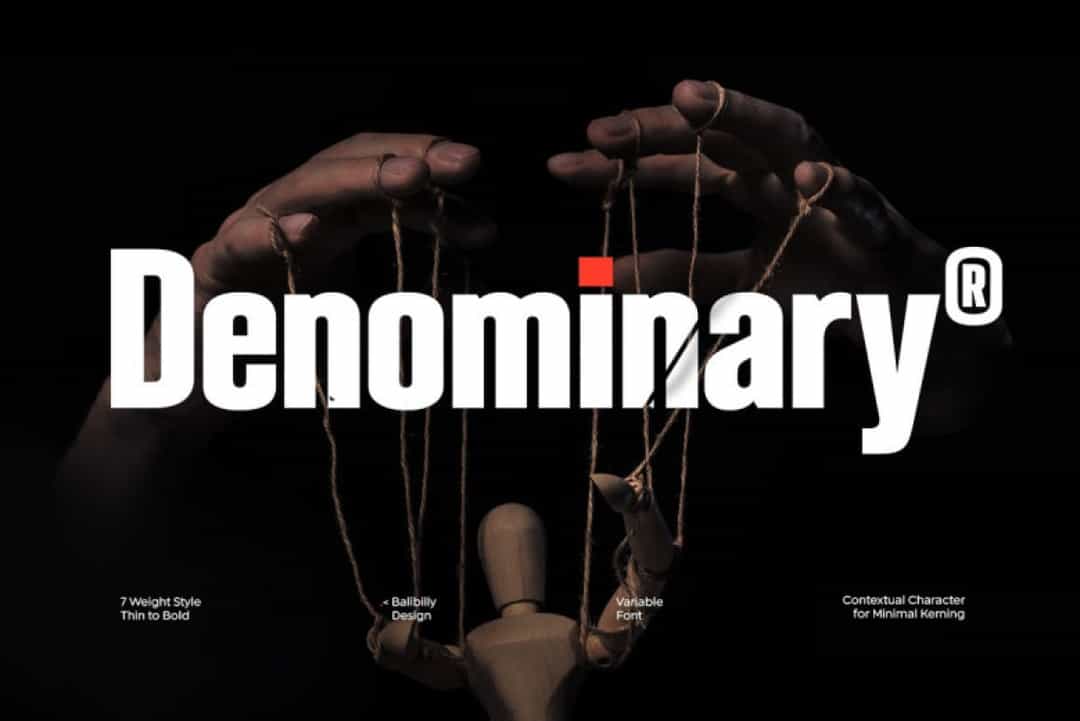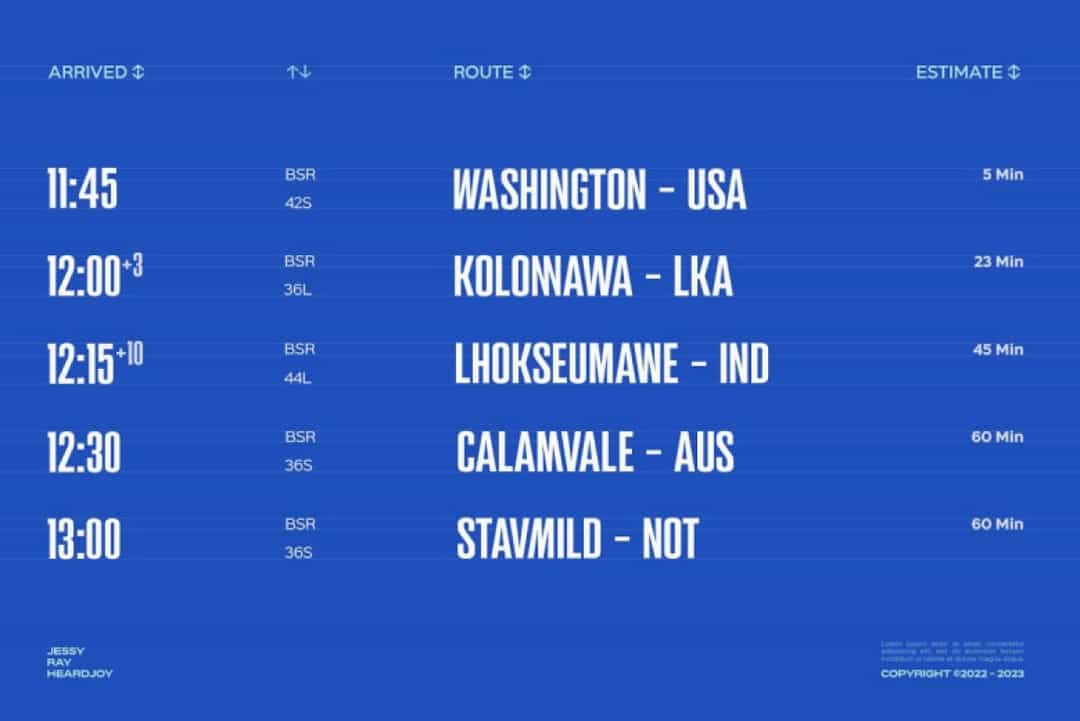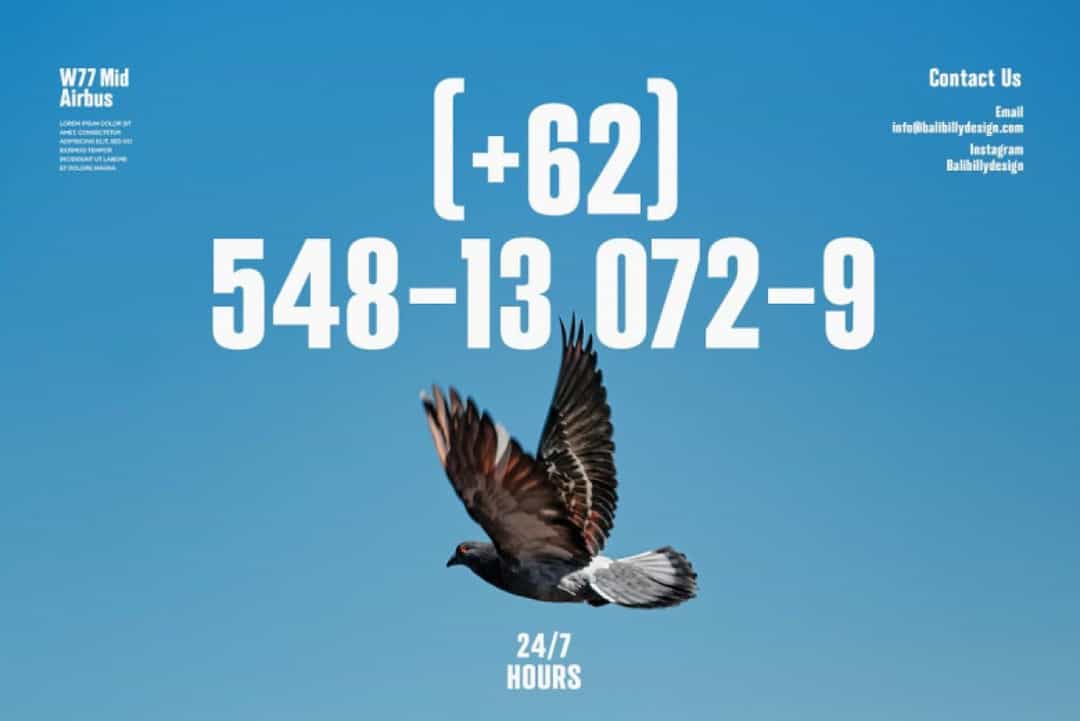
Denominative Sans Serif font is all about elegance, precision and beauty – designed with great care to meet the creative professionals who value quality and distinction. Denominary typeface stands out from its competition by providing auto-active contextual alternative fonts.